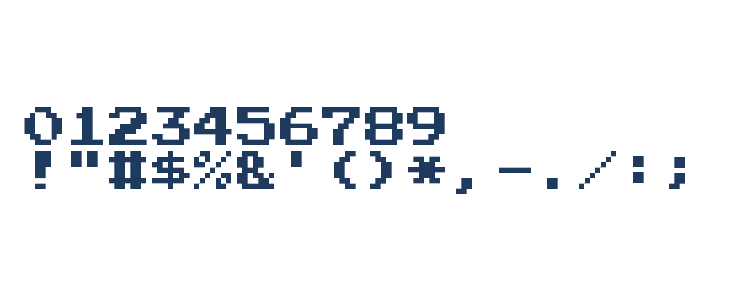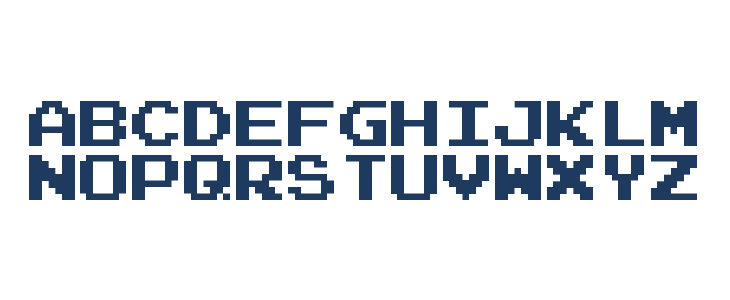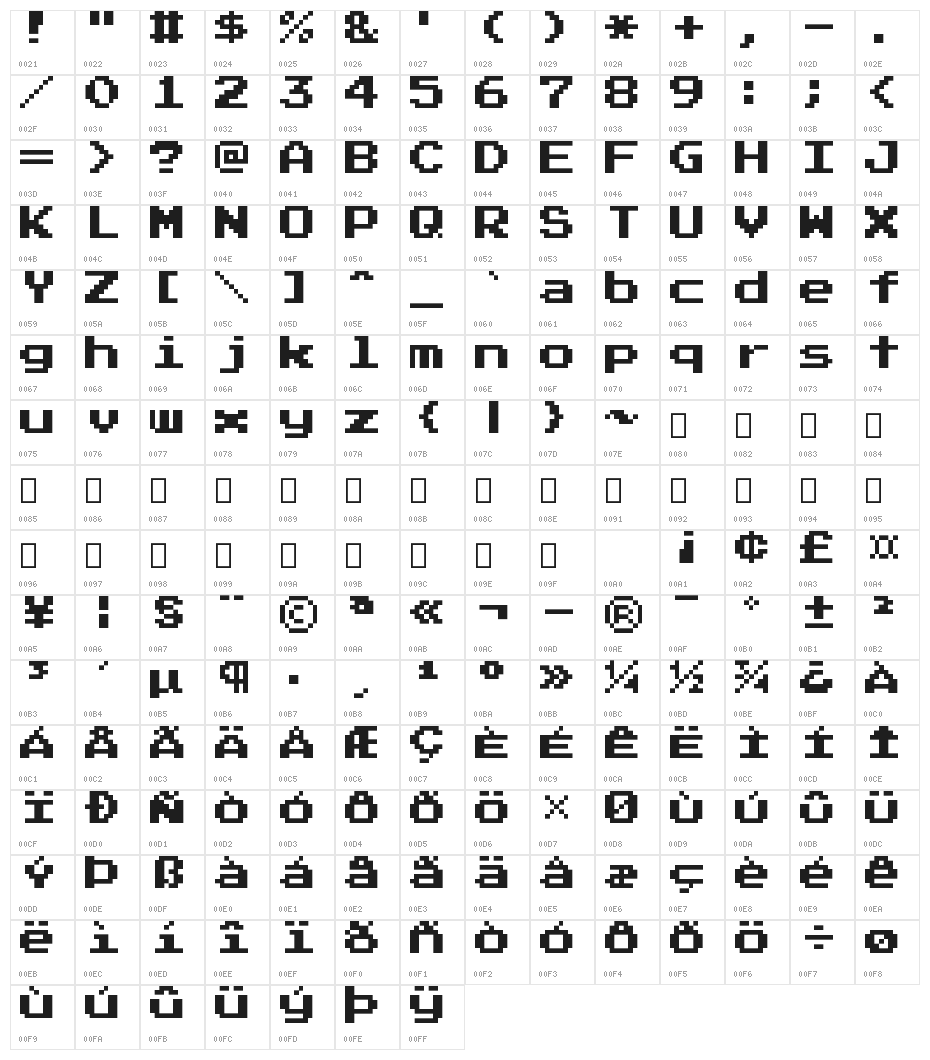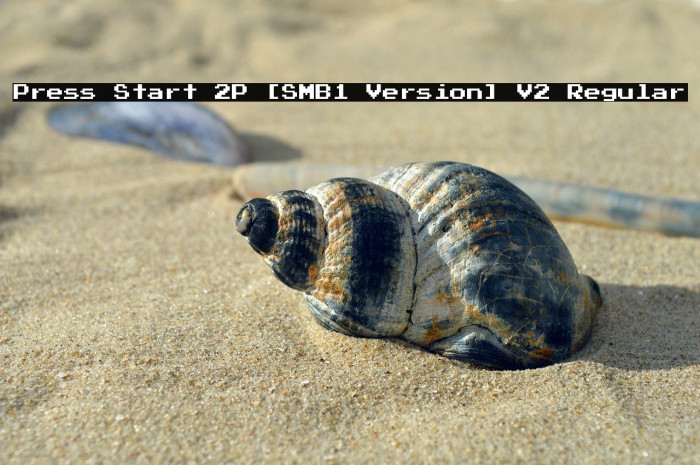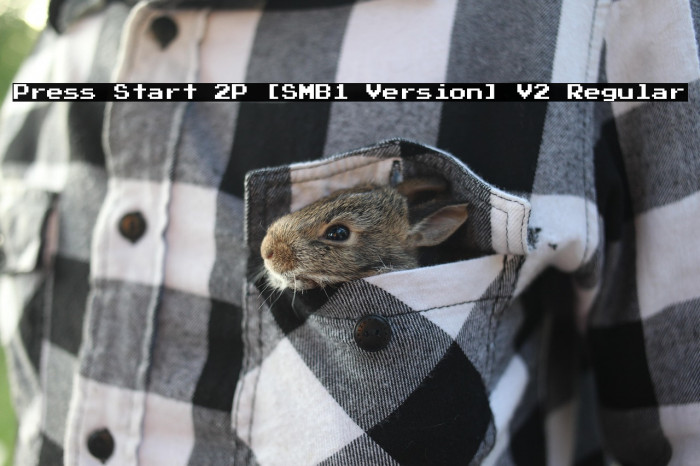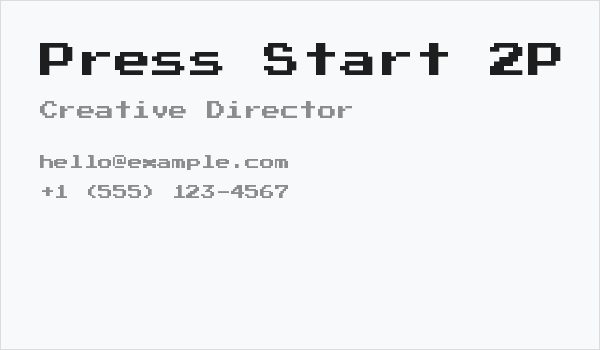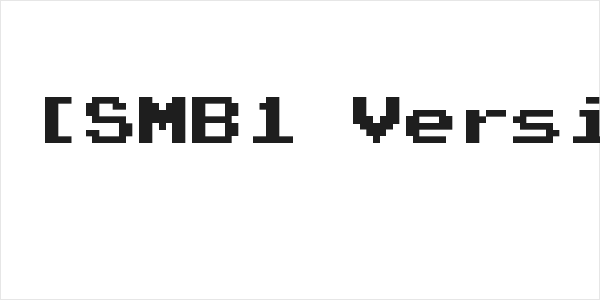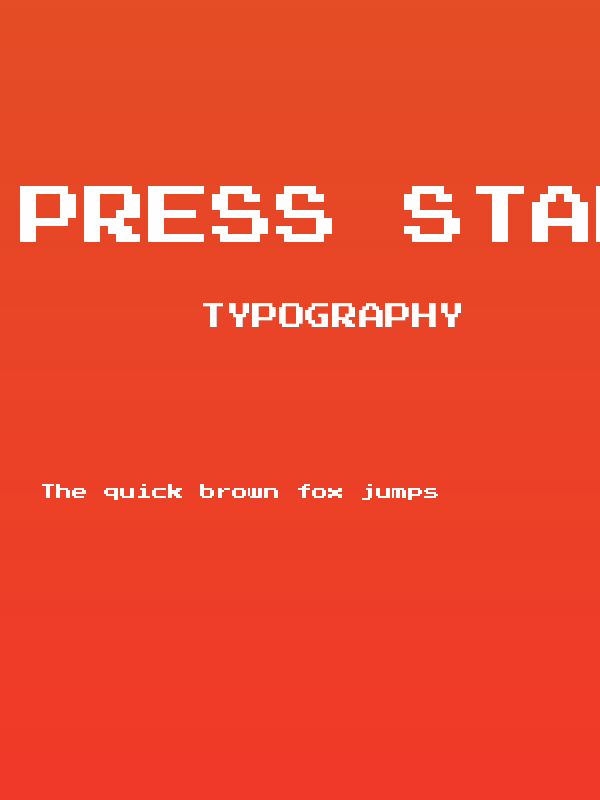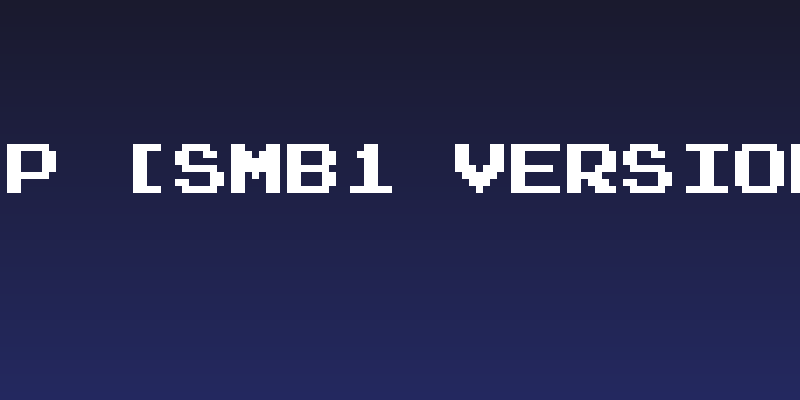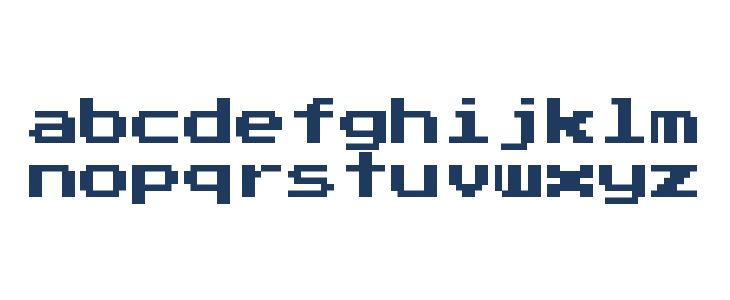
Press Start 2P [SMB1 Version] V2 Regular Font
Press Start 2P [SMB1 Version] V2 Regular Description
This font features a retro, pixelated design reminiscent of early video game graphics. Each character is composed of blocky, square pixels that create a distinctly digital aesthetic. The uniformity in height and width across all characters gives it a monospaced appearance, ideal for creating a nostalgic or tech-inspired look. The font maintains a consistent stroke width, contributing to its low contrast and straightforward style. Its simplicity and clarity make it highly legible, even at smaller sizes, while the pixelated form adds a playful, vintage charm.
| Use Case | Logos, Headlines, Digital Art |
| Proposed Projects | Ideal for video game design, retro-themed posters, digital art, and any project seeking a nostalgic or tech-inspired aesthetic. |